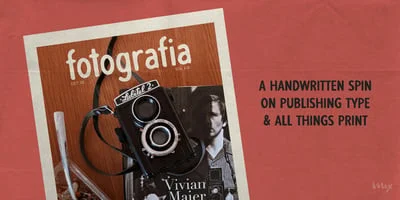
News Nook Font
News Nook Font is perfect for newspaper publishing, editorial magazine layouts, news website headers, journalism school materials, media company branding, press release documents, broadcast news graphics, investigative reporting materials, and professional journalism campaigns. This authoritative typeface brings journalistic credibility and editorial excellence to both digital and print design applications.
News Nook Font is exciting because it embodies the trusted reliability and professional integrity of quality journalism, making it an exceptional choice for designers who want to convey news credibility with authentic editorial authority. Its clear letterforms and readable character provide the perfect combination of journalistic professionalism and functional clarity, ensuring your projects communicate trustworthiness, accuracy, and editorial excellence that resonates with audiences seeking genuine news quality and journalistic integrity.
The News Nook Font family includes editorial weight variations and journalistic elements, featuring light, regular, medium, and bold weights with complementary condensed styles, professional ligatures, and news-inspired typographic details. Each style maintains consistent editorial aesthetics while offering flexibility for different publishing applications, allowing designers to create credible visual systems that reflect journalistic standards and media professionalism.
Whether you're designing for news organizations, publishing companies, or media brands, News Nook Font delivers authentic journalistic appeal and editorial sophistication that connects with audiences seeking genuine news quality and professional media experiences. This premium typeface offers designers the editorial authority and journalistic credibility needed to create designs that communicate news excellence, media integrity, and publishing professionalism effectively. The font's trustworthy character makes it perfect for news branding, editorial campaigns, and journalism applications where authentic media credibility is essential. Download News Nook Font today and inform your creative projects with genuine editorial sophistication and journalistic typography excellence that defines media standards.